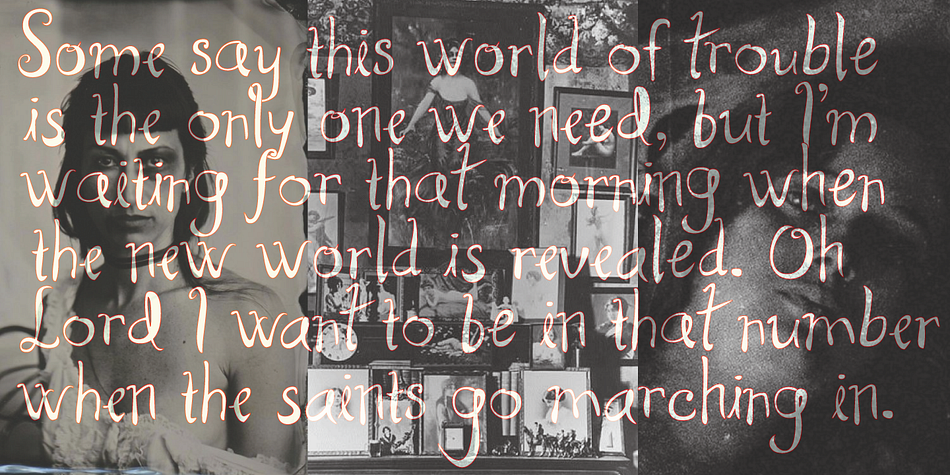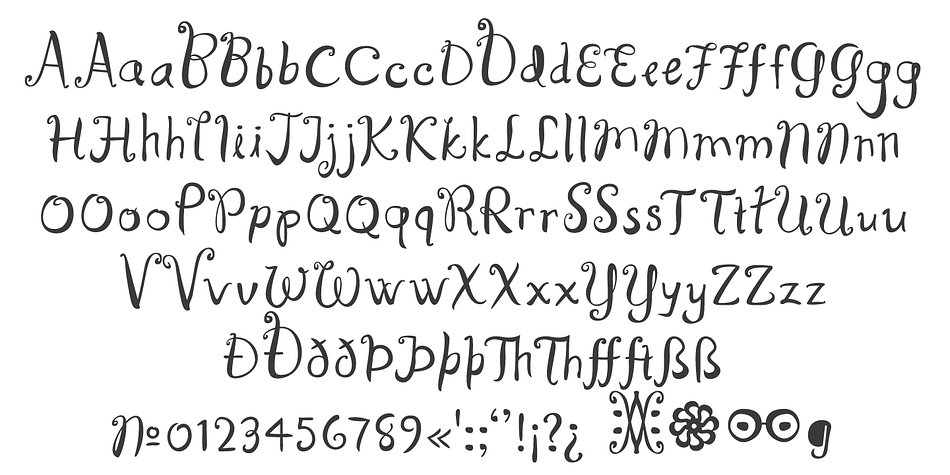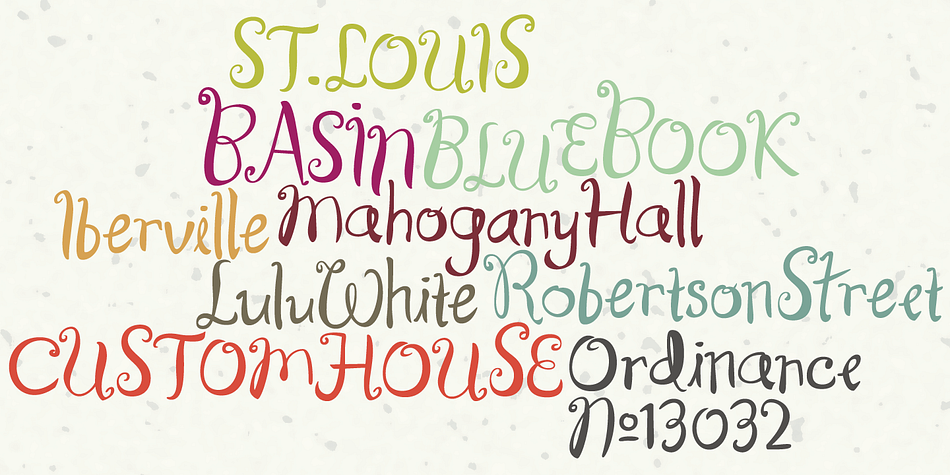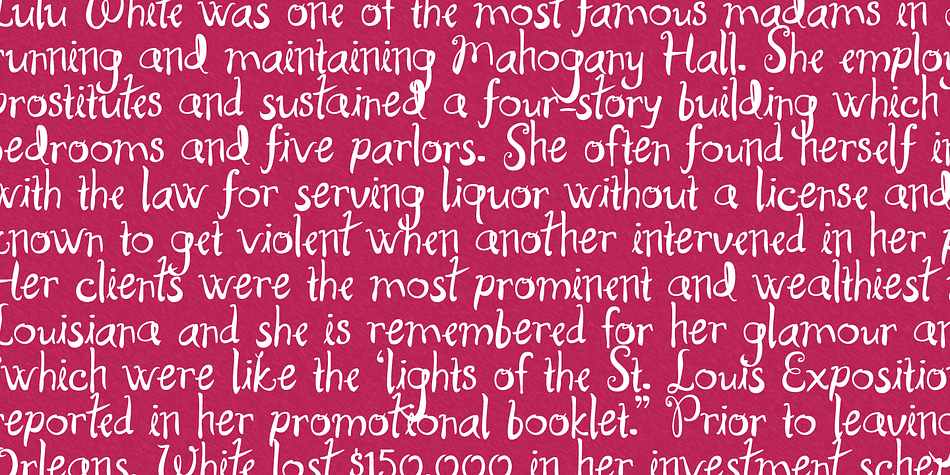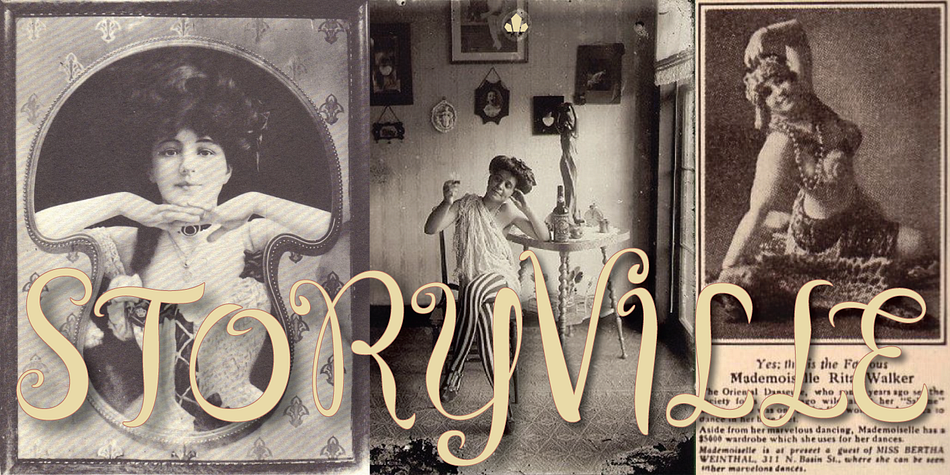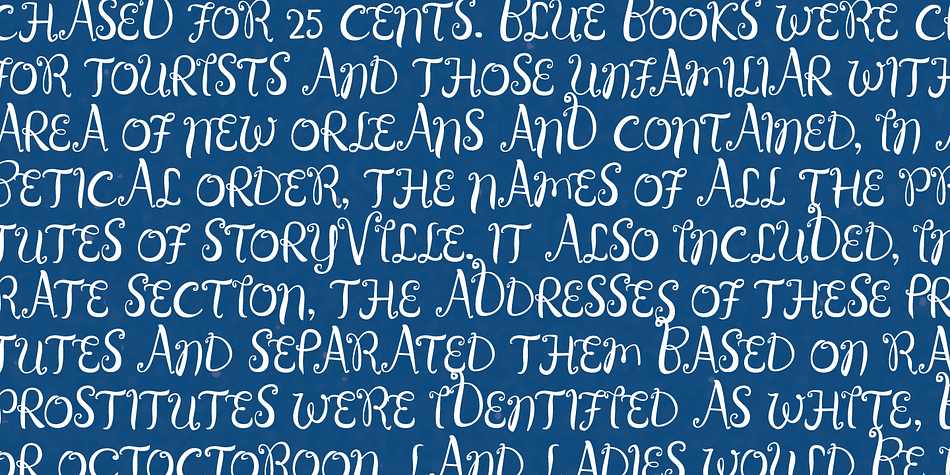
Designed by Rebecca Alaccari, Storyville is a script font published by Canada Type.
This is the redrawn and expanded version of an alphabet Rebecca Alaccari made back in 2009 as a bespoke font for a tourism agency looking to recapture the appeal of New Orleans after the hurricane Katrina disaster robbed it of its core industries. The brief back then was to “revive the unique spirit of what always made Nola great for new adults, which is the excellent combination of history, romance, food and music.” No word of a lie, the brief actually contained “new adults.”
Storyville contains two interchangeable sets of forms drawn in the doodly, loose and organic way now conspicuously popular with today’s young designers, almost every one of whom thinks they will get to design something for a boutique coffee bar somewhere. Well, this whole thing perhaps means freedom, youth, fun, happiness, good stuff like that. But just in case, a little caution doesn’t hurt: Use this font only if you know what you’re doing. We don’t want to go back to the 1990s. Please. We were nearly done for by that exposure the first time around.